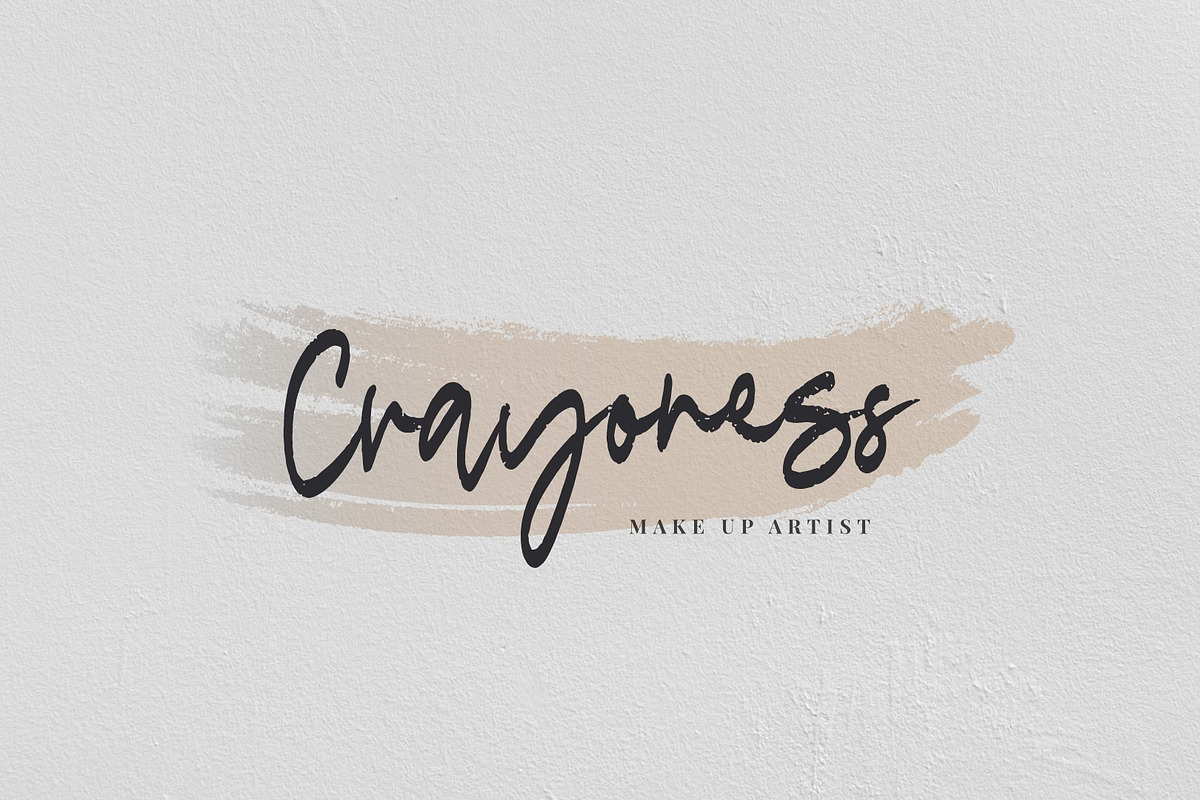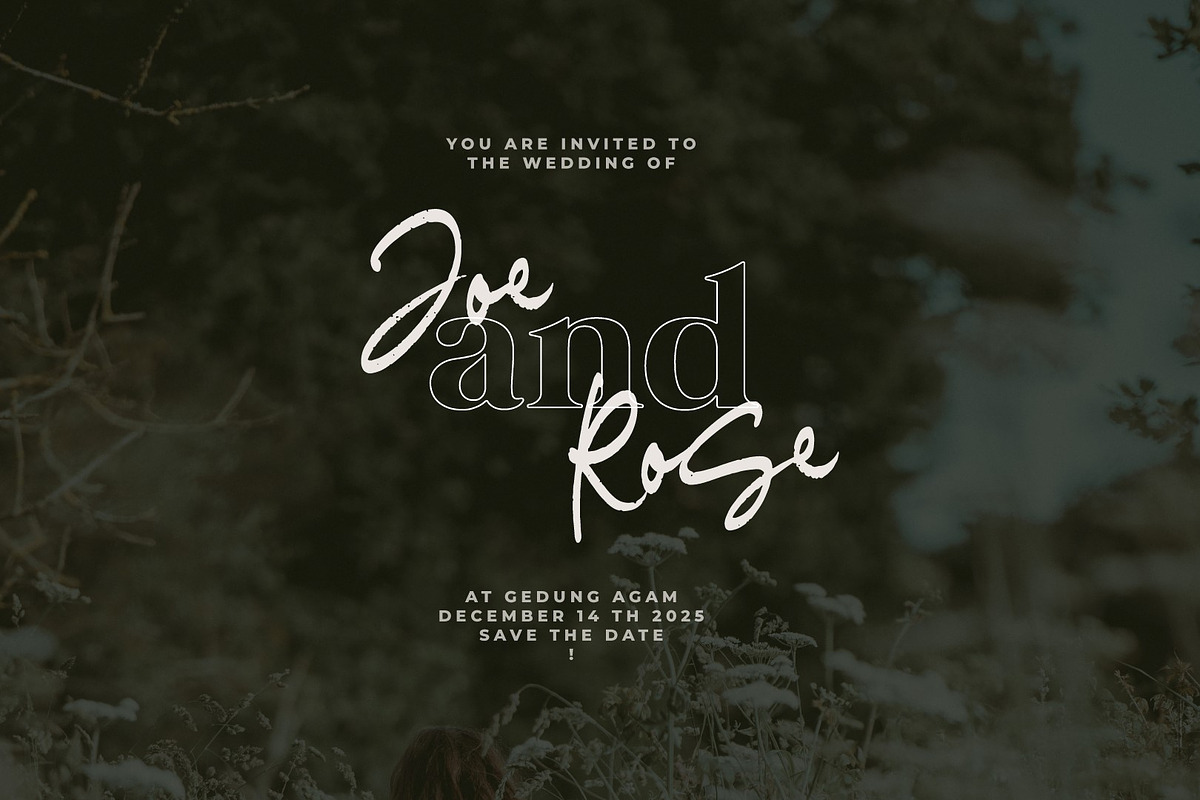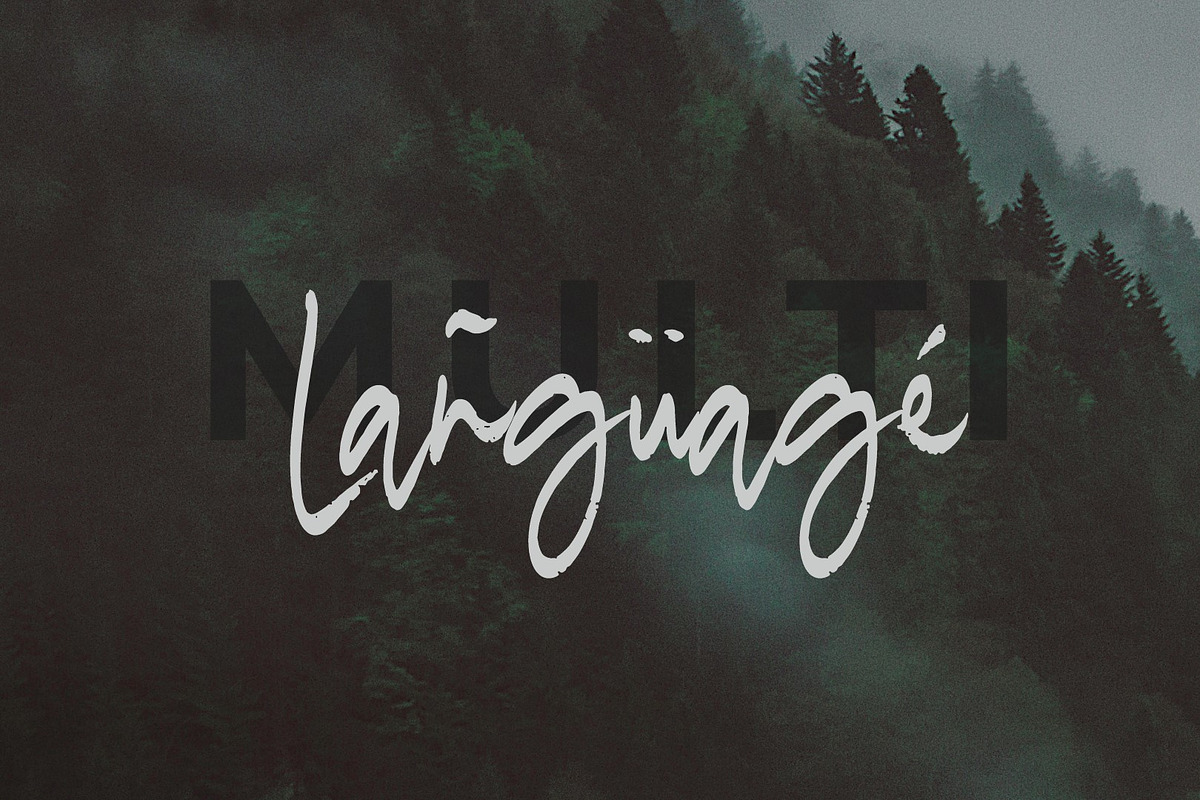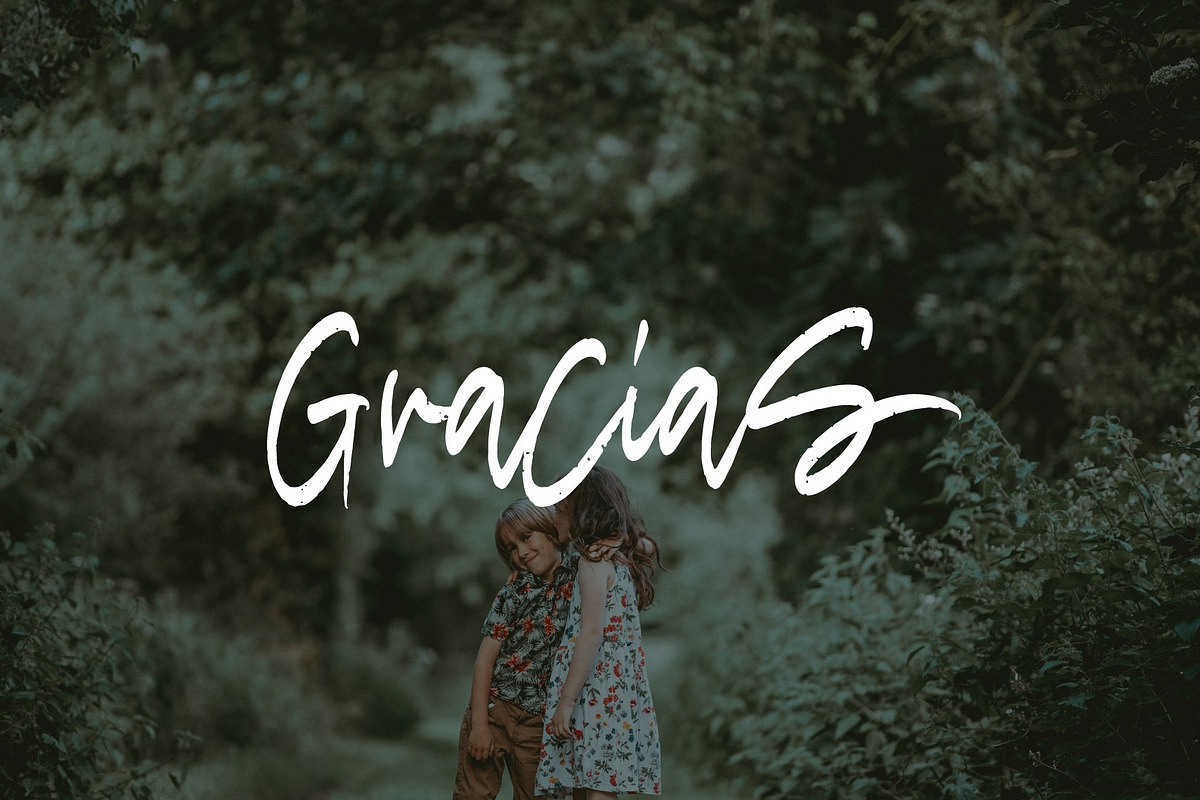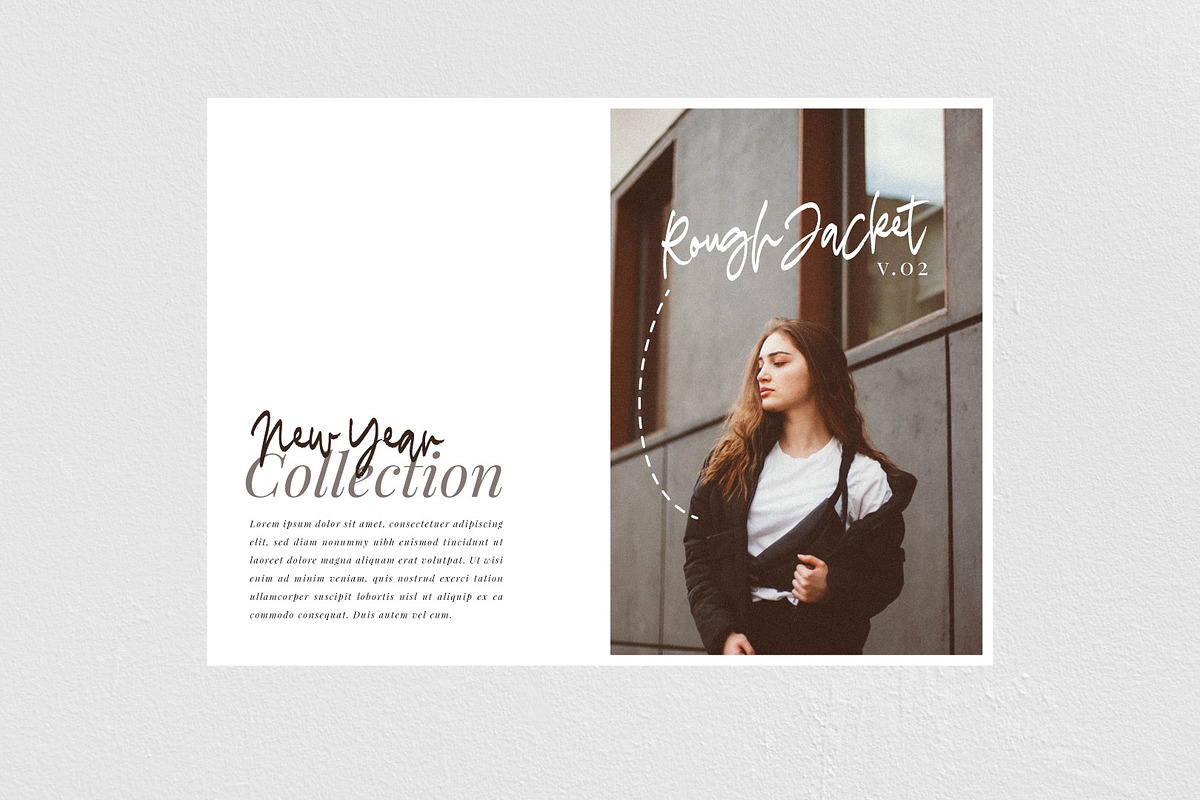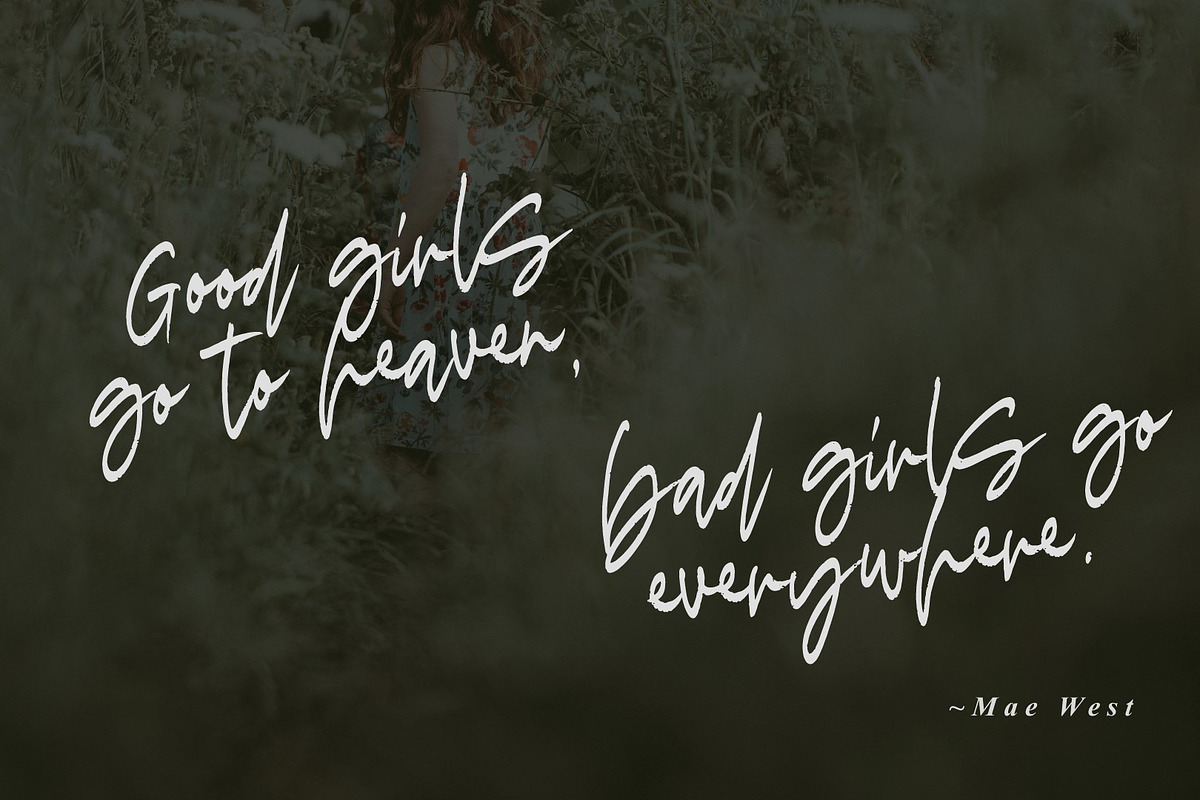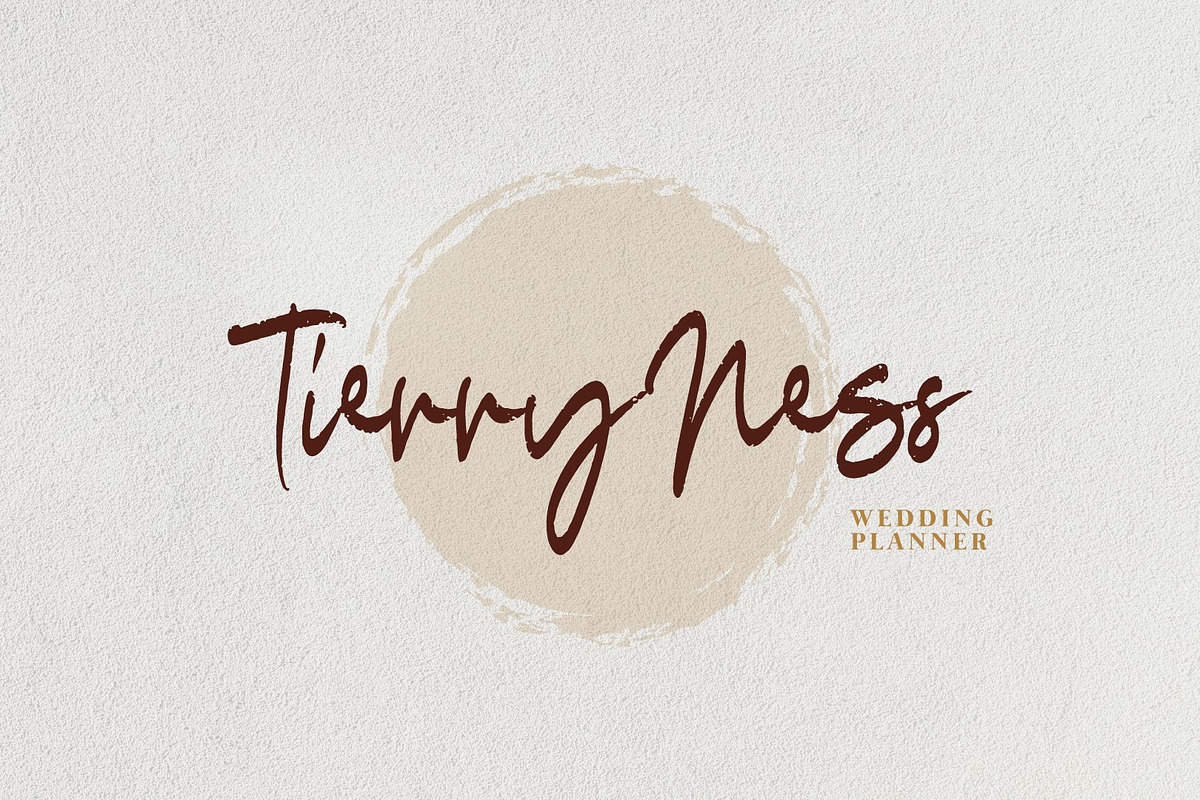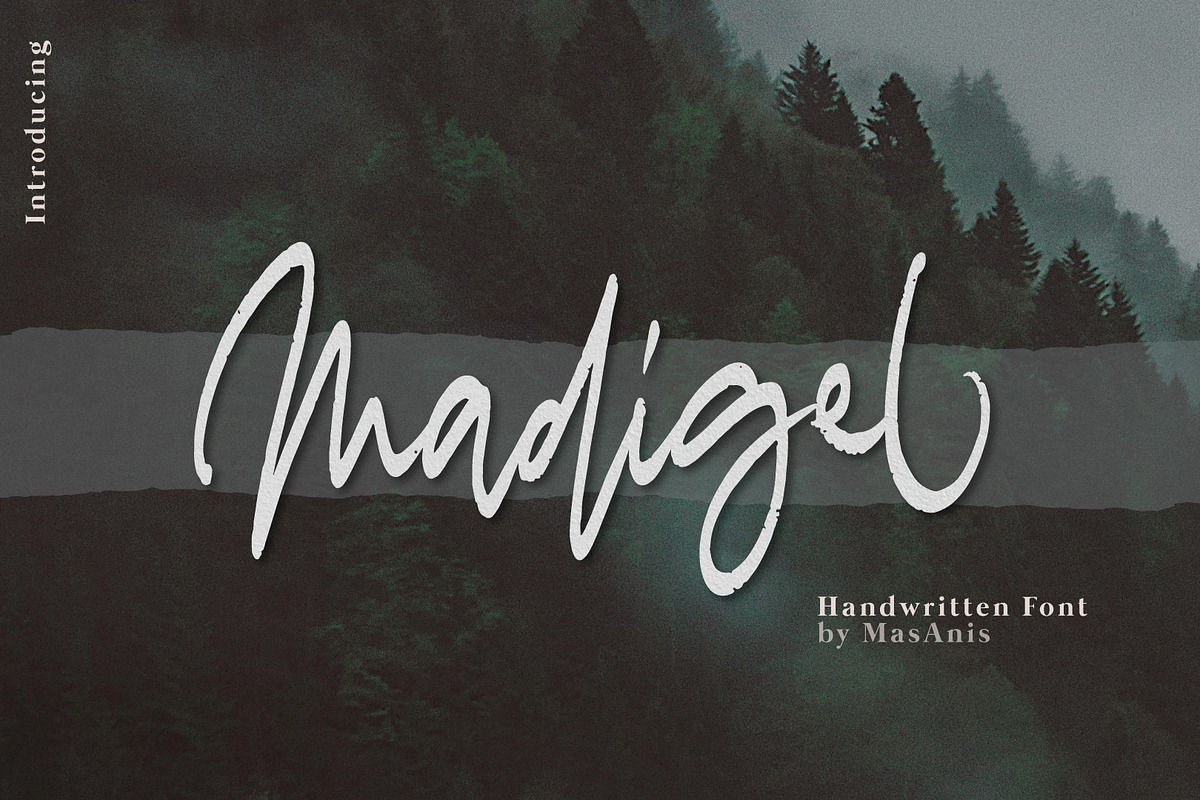
Madigel // Handwritten
Introducing Madigel - Handwritten
a casual font, this font perfect for logo, invitation, stationery, wedding designs, social media posts, advertisements, product packaging, product designs, label, photography, watermark, special events or anything and fonts are provided in TTF & OTF formats.